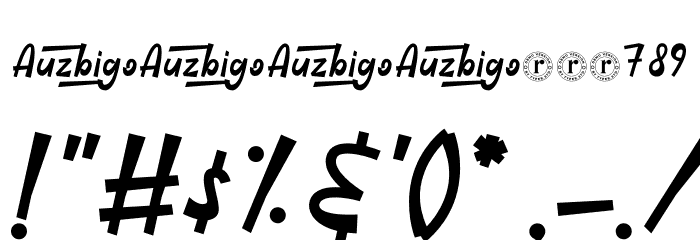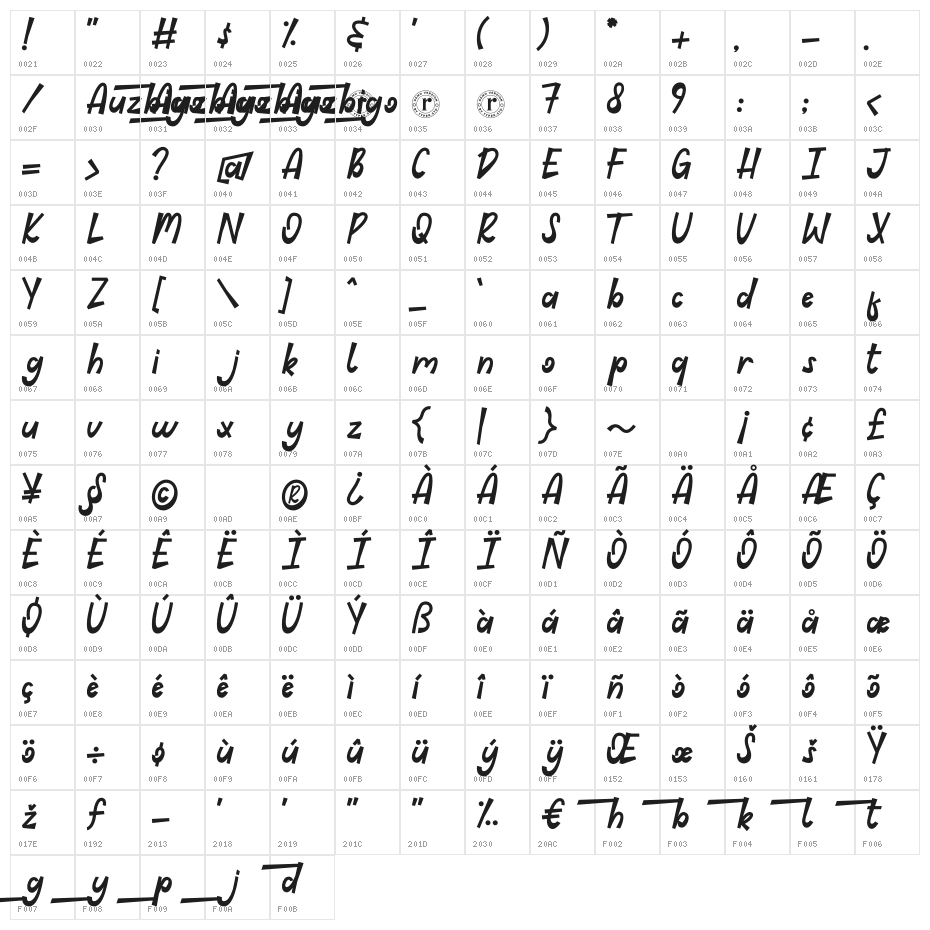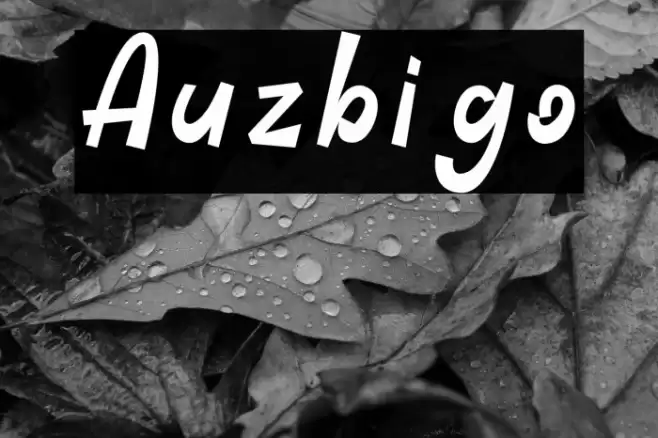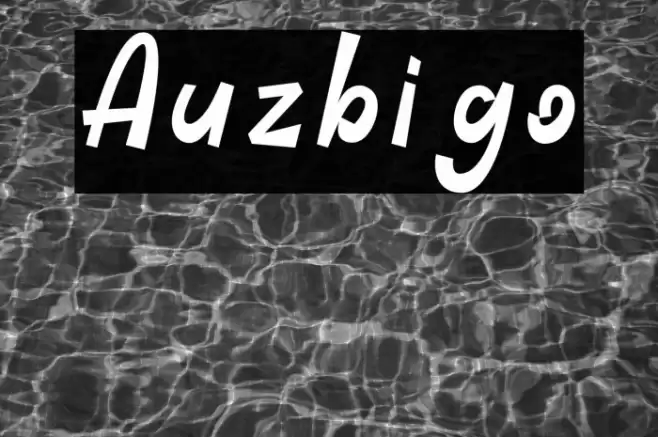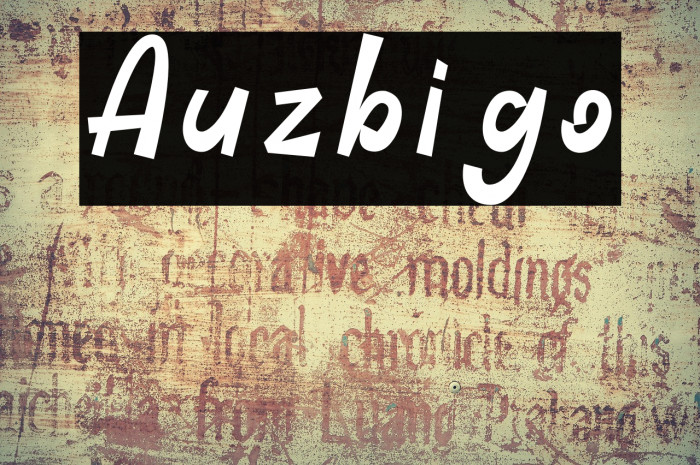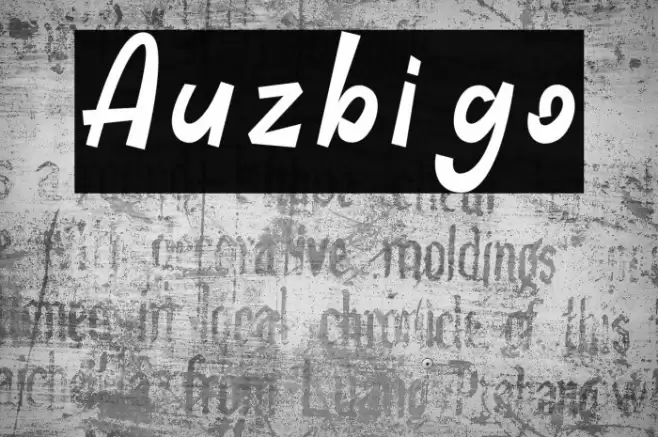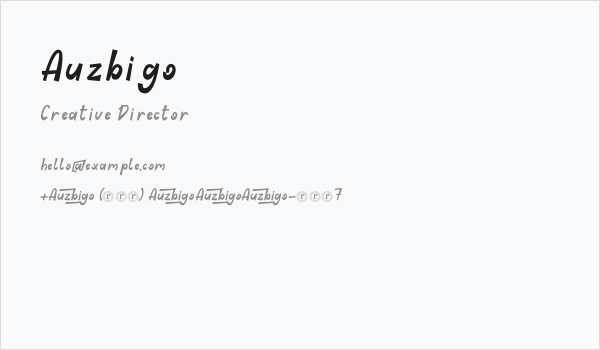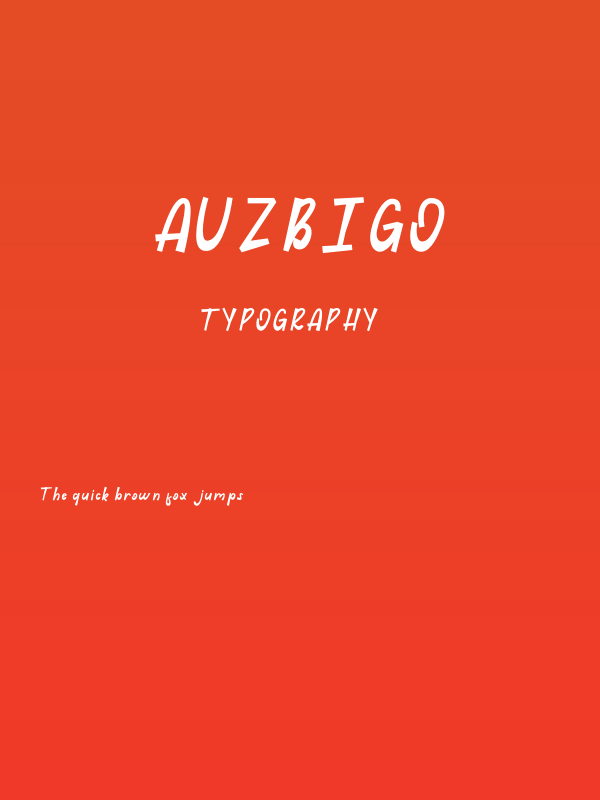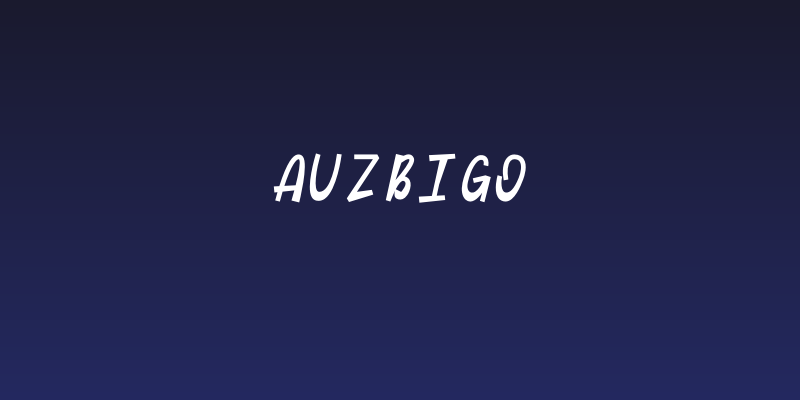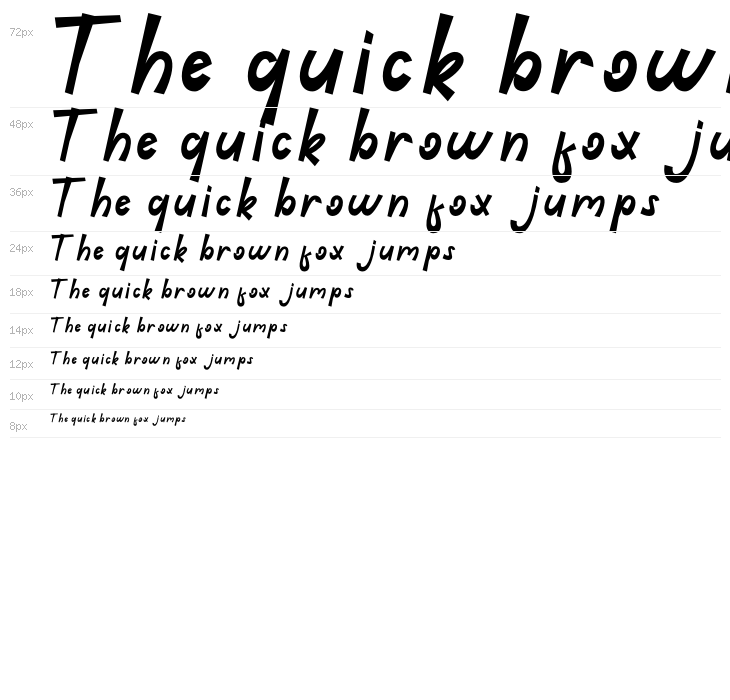
Auzbigo Font
Auzbigo Description
This font exhibits a playful and dynamic style, characterized by its slanted, handwritten appearance. The letters are bold and slightly irregular, giving a sense of movement and energy. The uppercase and lowercase letters maintain a consistent style, with a slight tilt to the right, enhancing the casual and informal feel. The numbers and special characters follow the same aesthetic, ensuring a cohesive look across all characters. The font's unique personality makes it stand out, suitable for projects that require a touch of creativity and fun.
| Proposed Projects | Ideal for creative projects such as posters, children's books, greeting cards, and branding materials that require a lively and informal touch. |